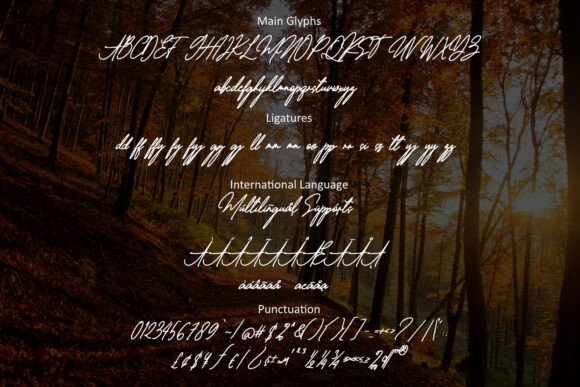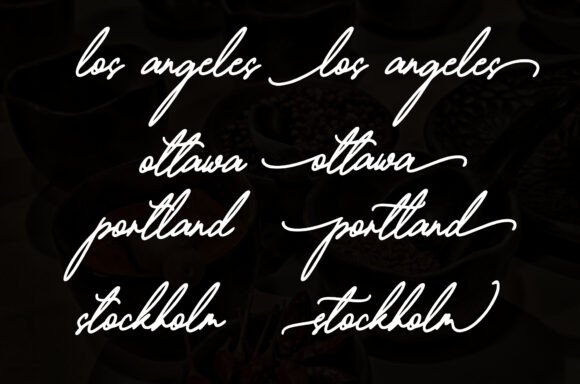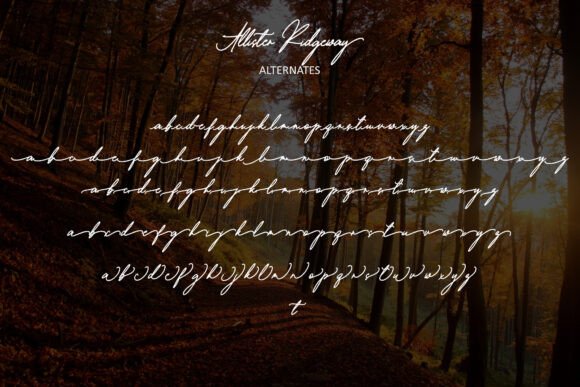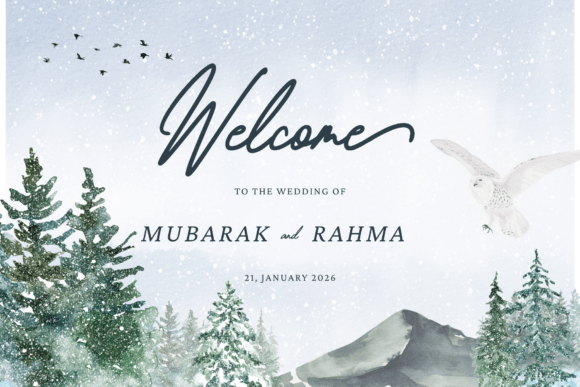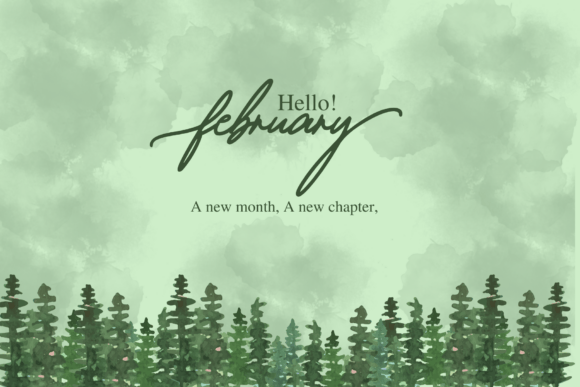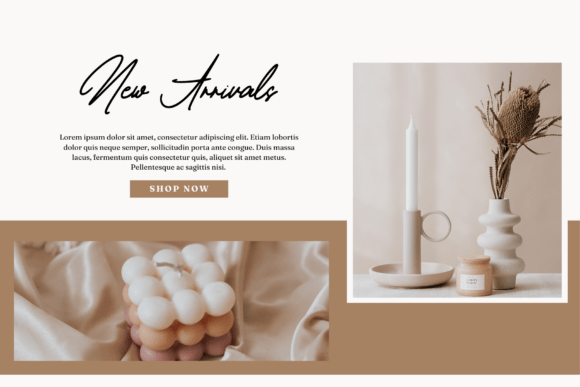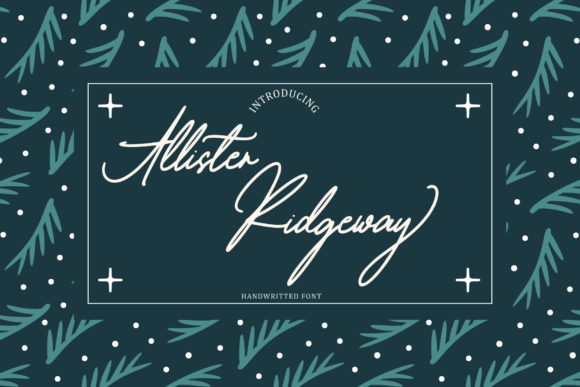
Introducing Allister Ridgeway Font: Elevate Your Designs with Sleek Sophistication
In the world of typography, fonts play a pivotal role in conveying messages, evoking emotions, and defining the aesthetic of a design. Among the myriad of fonts available, Allister Ridgeway stands out as a beacon of elegance and simplicity. This sleek, monoline handwritten font has been gaining attention for its unique ability to blend modern simplicity with sophisticated charm. In this article, we’ll dive into the characteristics, uses, and benefits of the Allister Ridgeway font, exploring why it has become a go-to choice for designers and crafters alike.
The Essence of Allister Ridgeway
Allister Ridgeway is more than just a font; it’s a design statement. Characterized by its smooth, continuous strokes and subtle curves, this font exudes a sense of effortless flow. The monoline handwritten style gives it a personal touch, making it stand out in a digital age where uniformity often prevails. The clean lines and understated charm of Allister Ridgeway make it an ideal choice for those looking to add a touch of sophistication to their projects.
One of the key advantages of the Allister Ridgeway font is its versatility. Whether you’re working on branding and logos, invitations, digital media, or any other creative project, this font proves to be an excellent choice. Its adaptability stems from its clean and simple design, which can seamlessly fit into various contexts without overpowering the content. For designers and crafters, this means having a reliable font that can elevate a wide range of projects.
Applications of Allister Ridgeway
The applications of Allister Ridgeway are vast and varied. Here are a few areas where this font truly shines:
- Branding and Logos: In the realm of branding, establishing a strong visual identity is crucial. Allister Ridgeway, with its sleek and elegant appearance, can help create a memorable brand image.
- Invitations: For crafters and designers who specialize in creating invitations, Allister Ridgeway offers a touch of sophistication and class.
- Digital Media: In digital media, such as website design, social media graphics, and email newsletters, this font ensures readability and style.
Why Choose Allister Ridgeway?
Choosing a font for a project can be overwhelming, given the numerous options available. However, Allister Ridgeway offers several compelling reasons to be your top pick:
- Timeless Appeal: Unlike trendy fonts that may quickly become outdated, Allister Ridgeway boasts a timeless quality that ensures your designs remain relevant.
- Ease of Readability: Its clean lines and simple design make it highly readable, even at smaller sizes.
- Emotional Connection: The subtle curves and smooth strokes of Allister Ridgeway can evoke a sense of elegance and sophistication, helping you connect with your audience on a deeper level.
Tips for Using Allister Ridgeway
To make the most of Allister Ridgeway, consider the following tips:
- Pair with Contrasting Fonts: For maximum impact, pair Allister Ridgeway with fonts that have a contrasting style to create visual interest.
- Experiment with Colors: While the font itself is elegant, experimenting with different colors can help tailor it to your project’s specific needs.
- Consider Size and Weight: Don’t be afraid to play with the size and weight of Allister Ridgeway to emphasize certain parts of your design.
| Font Name | Allister Ridgeway Font |
| Author | jackgridden |
Allister Ridgeway is a versatile and elegant font that offers a unique blend of simplicity and sophistication. Its smooth, continuous strokes and subtle curves make it perfect for a wide range of creative projects. Whether you’re a designer looking to elevate your branding and digital media or a crafter aiming to add a touch of class to your invitations, Allister Ridgeway is an excellent choice. Its timeless appeal, ease of readability, and ability to evoke an emotional connection make it a valuable addition to any designer’s or crafter’s toolkit.
Embrace the elegance of Allister Ridgeway and discover how this sleek, monoline handwritten font can transform your designs, adding a refined character that resonates with audiences and stands the test of time.